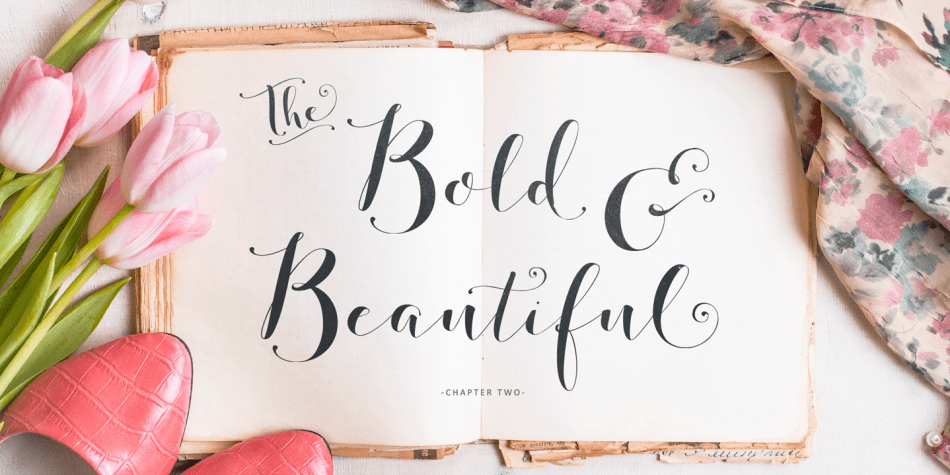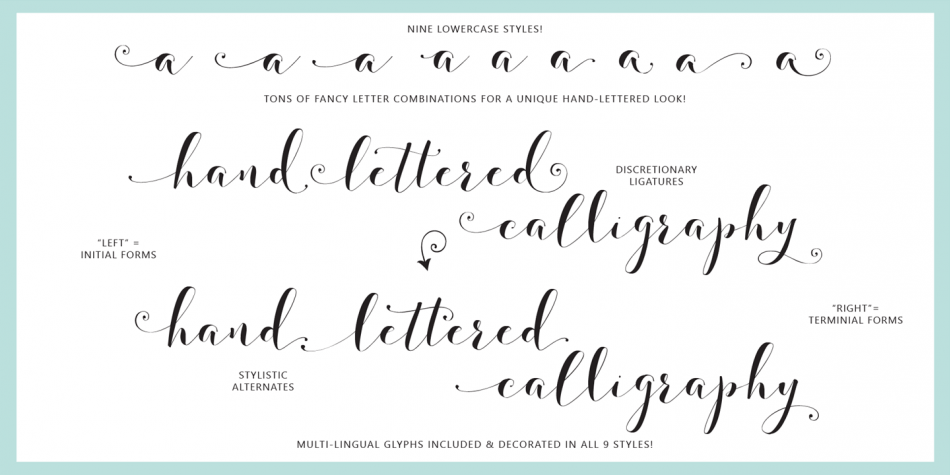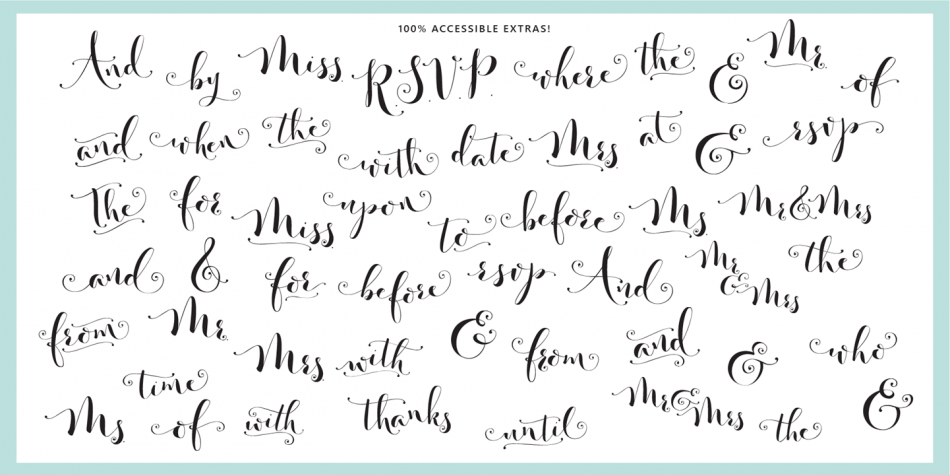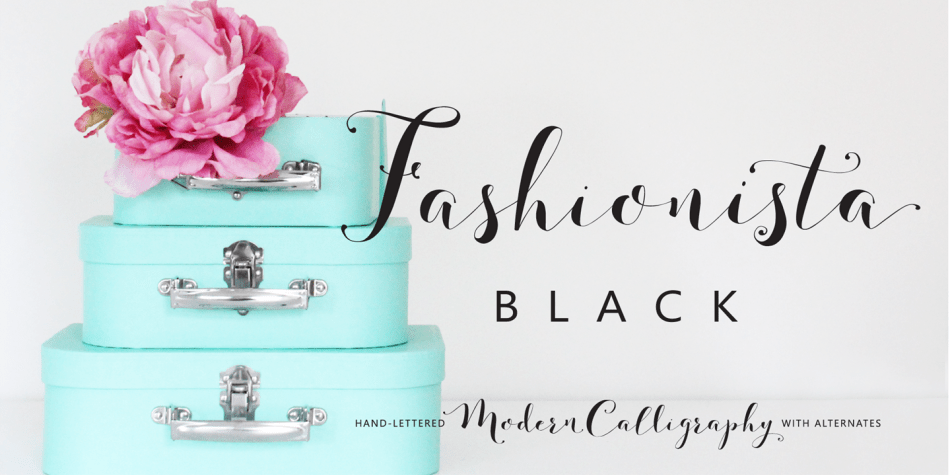
About Fashionista Black
Meet Fashionista Black! A contemporary and clean hand-lettered calligraphy style script. This mix of modern and classic writing is soon to be your favorite for weddings, stationary, logos and more!